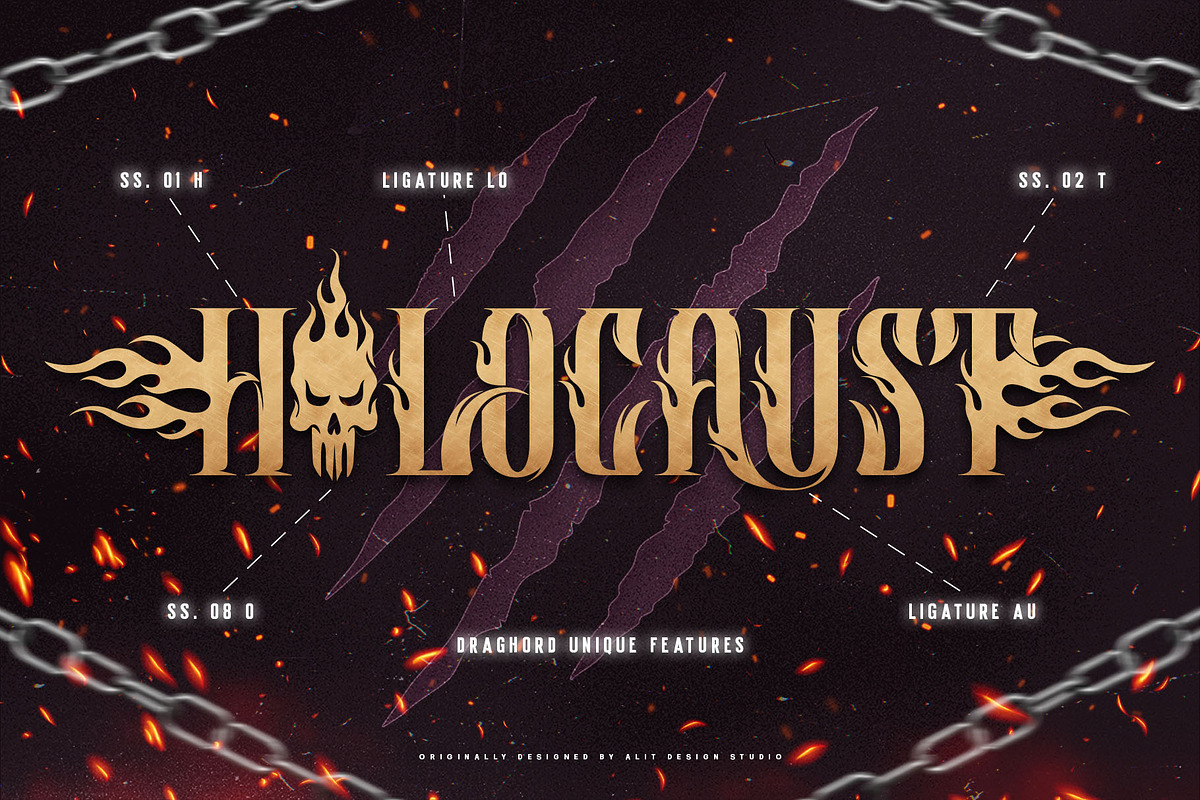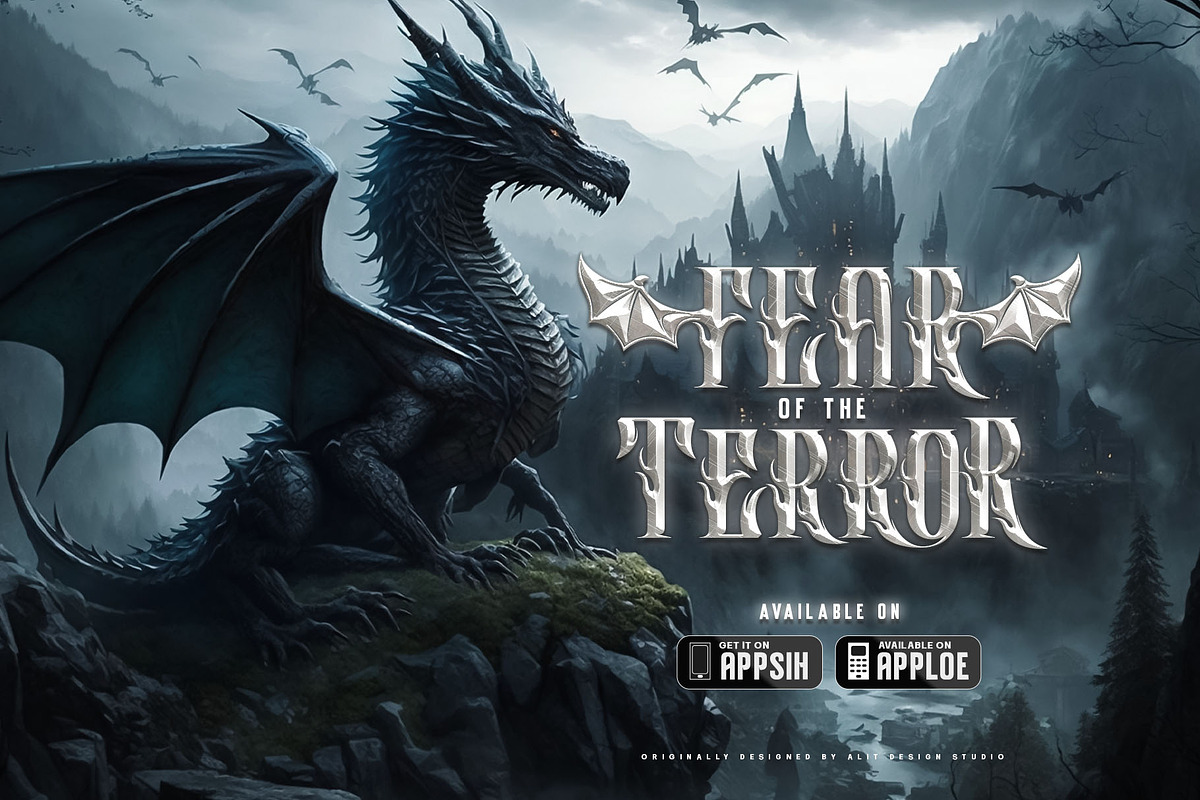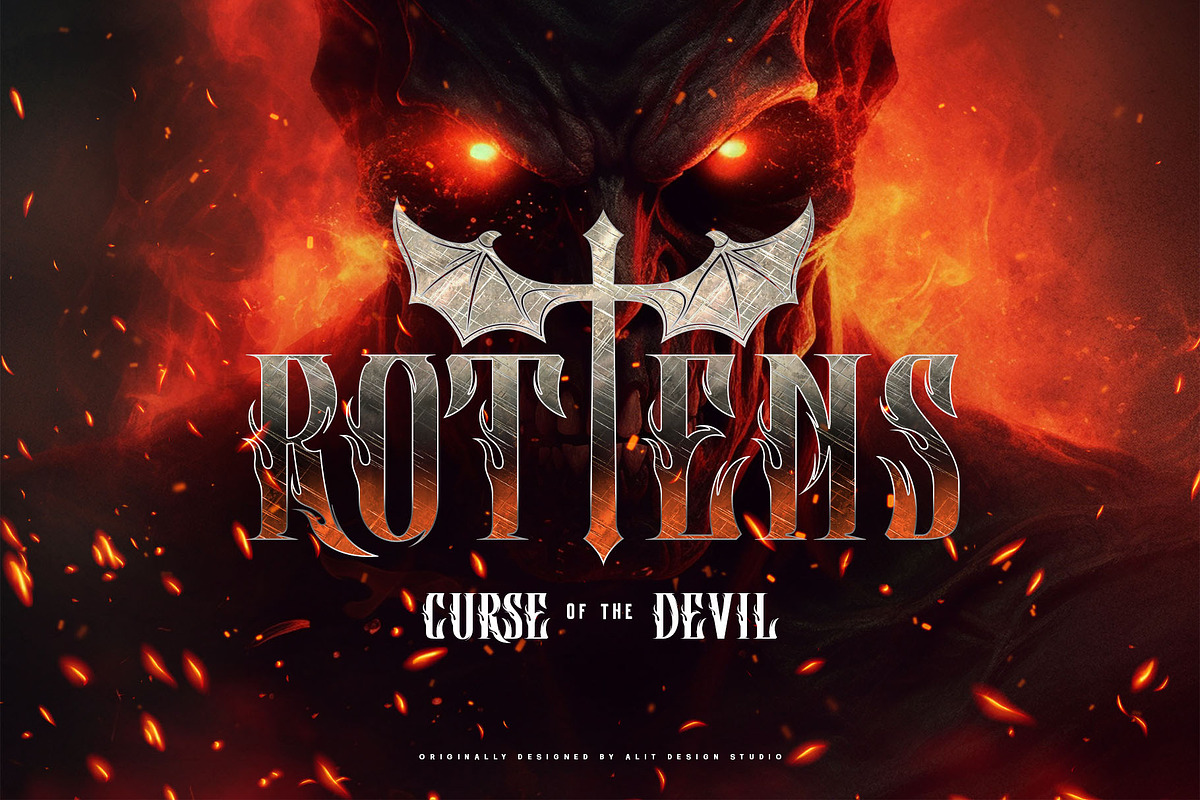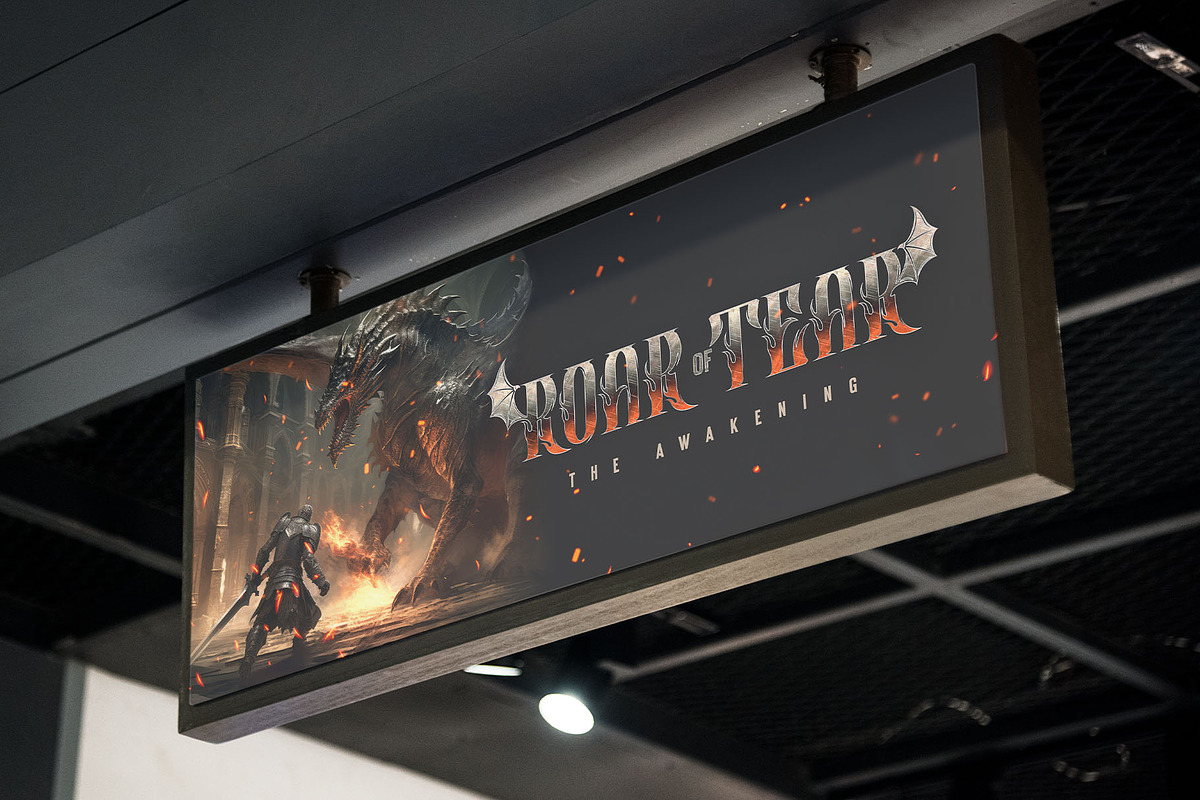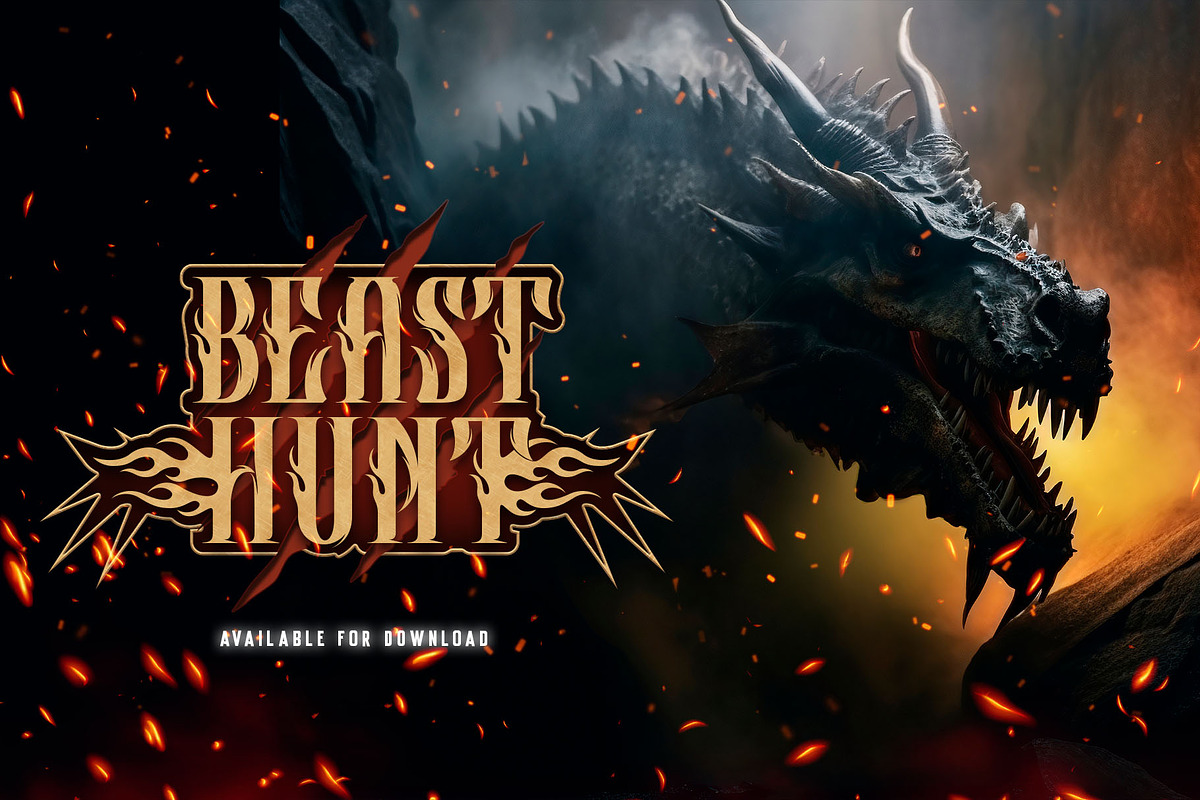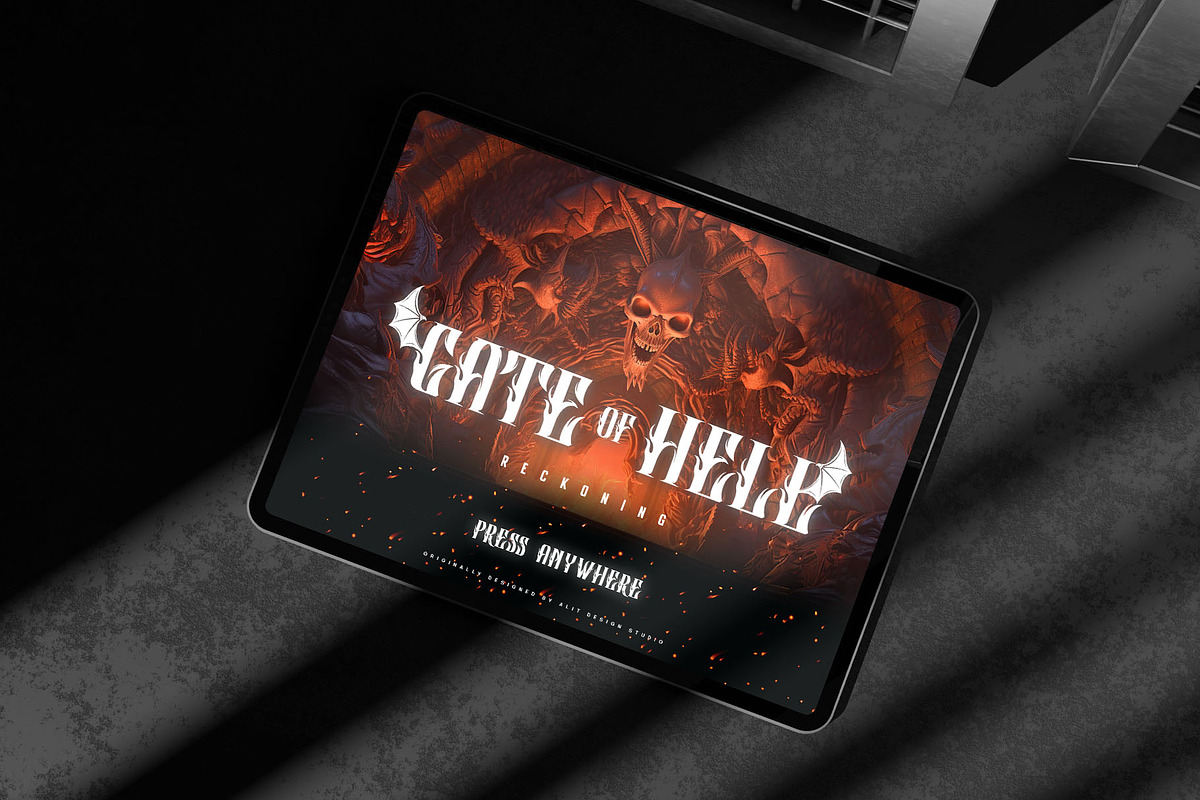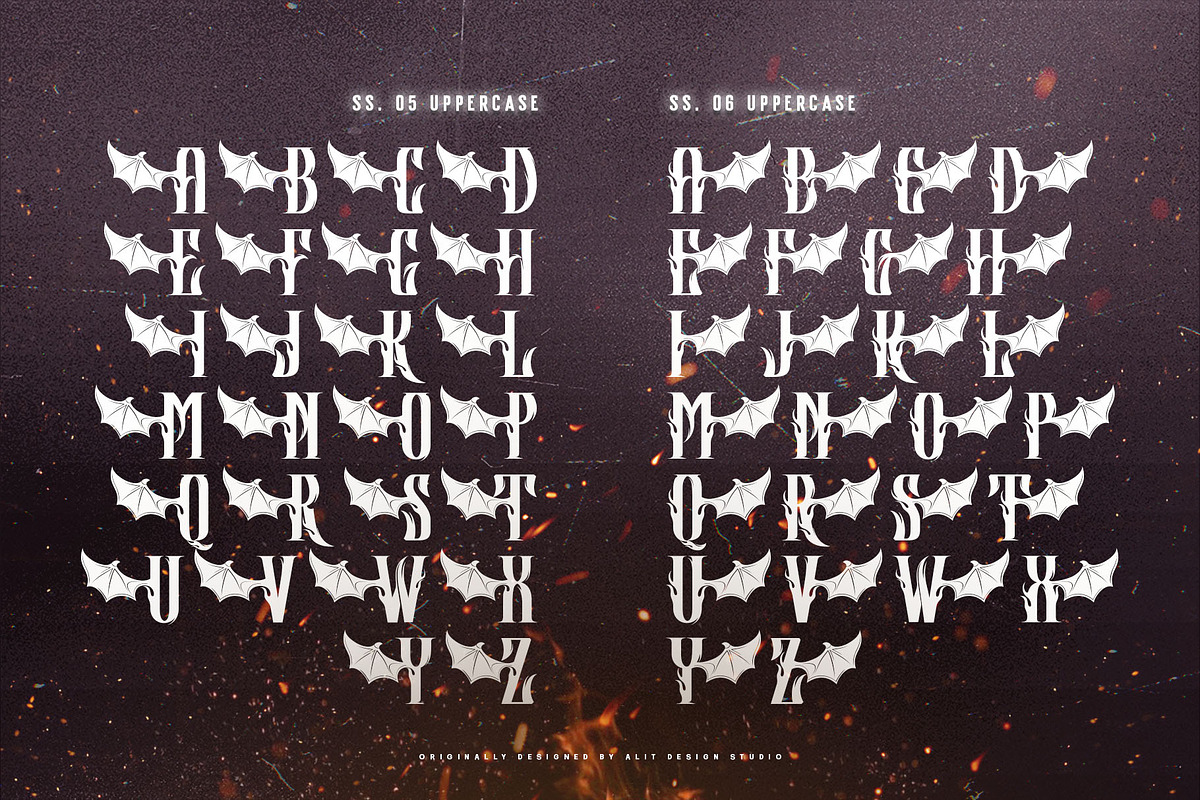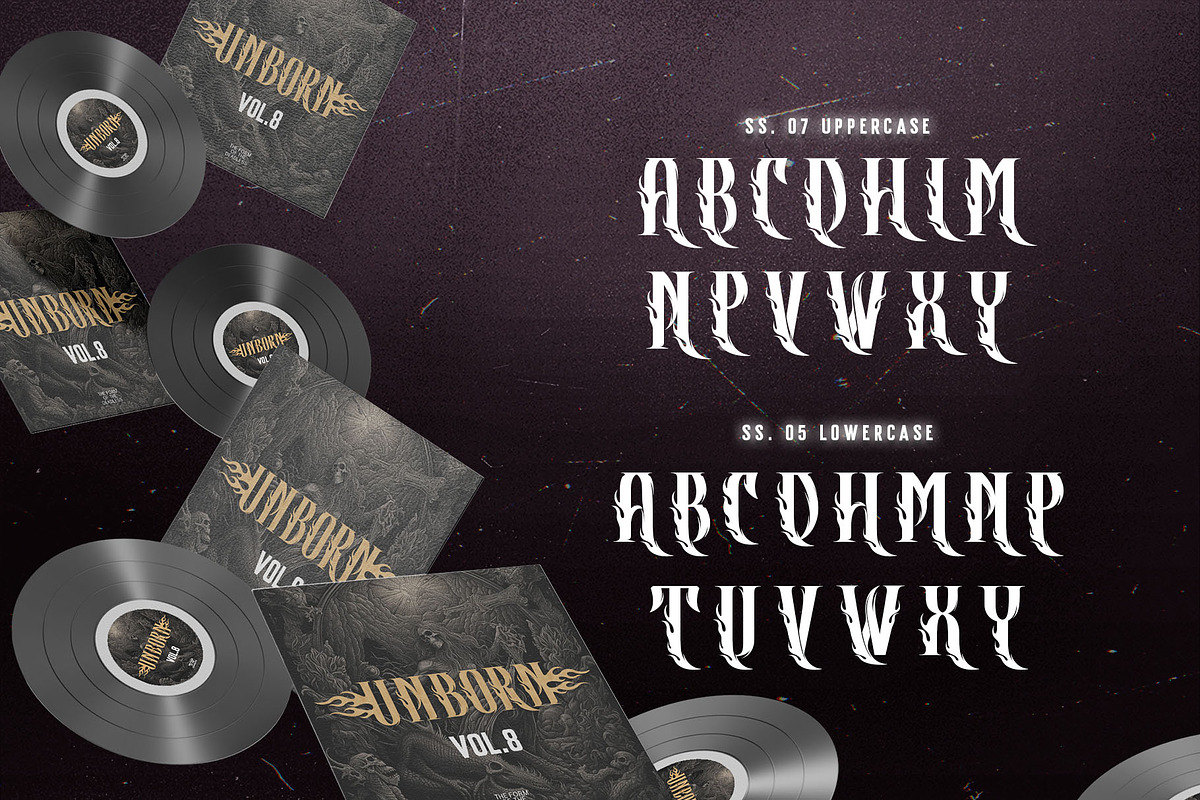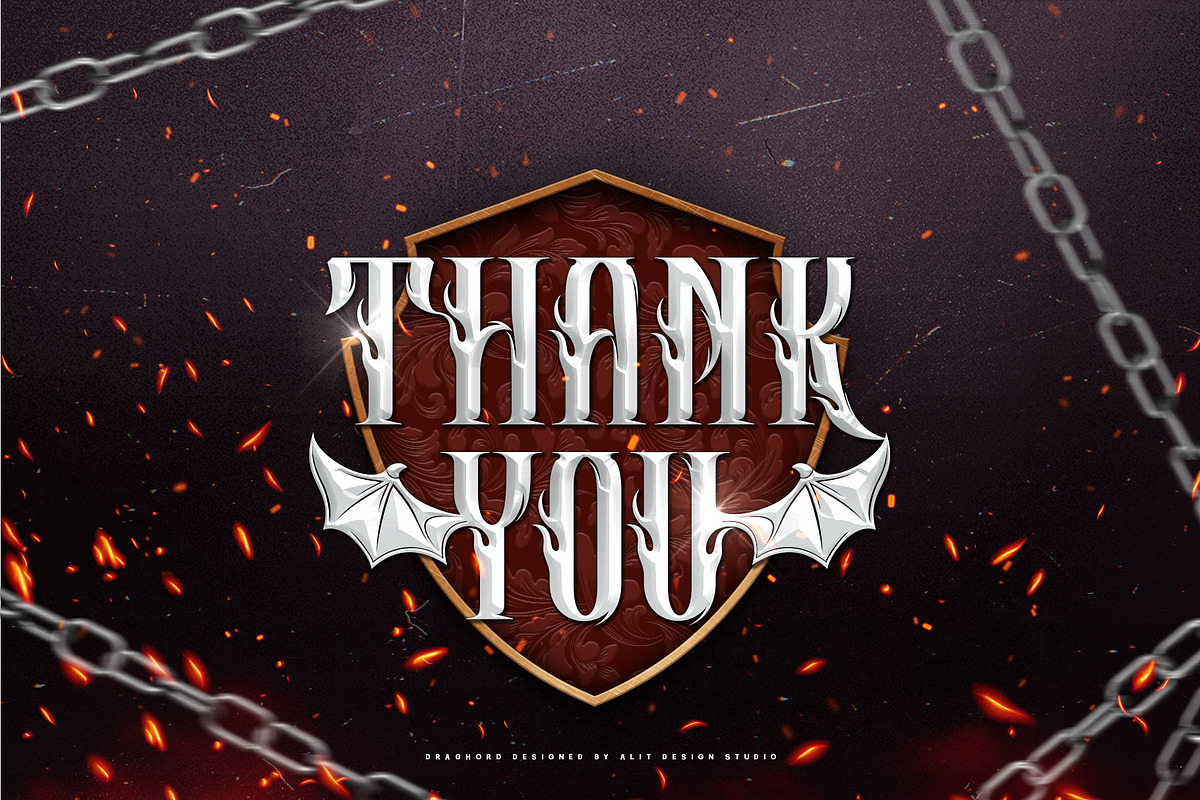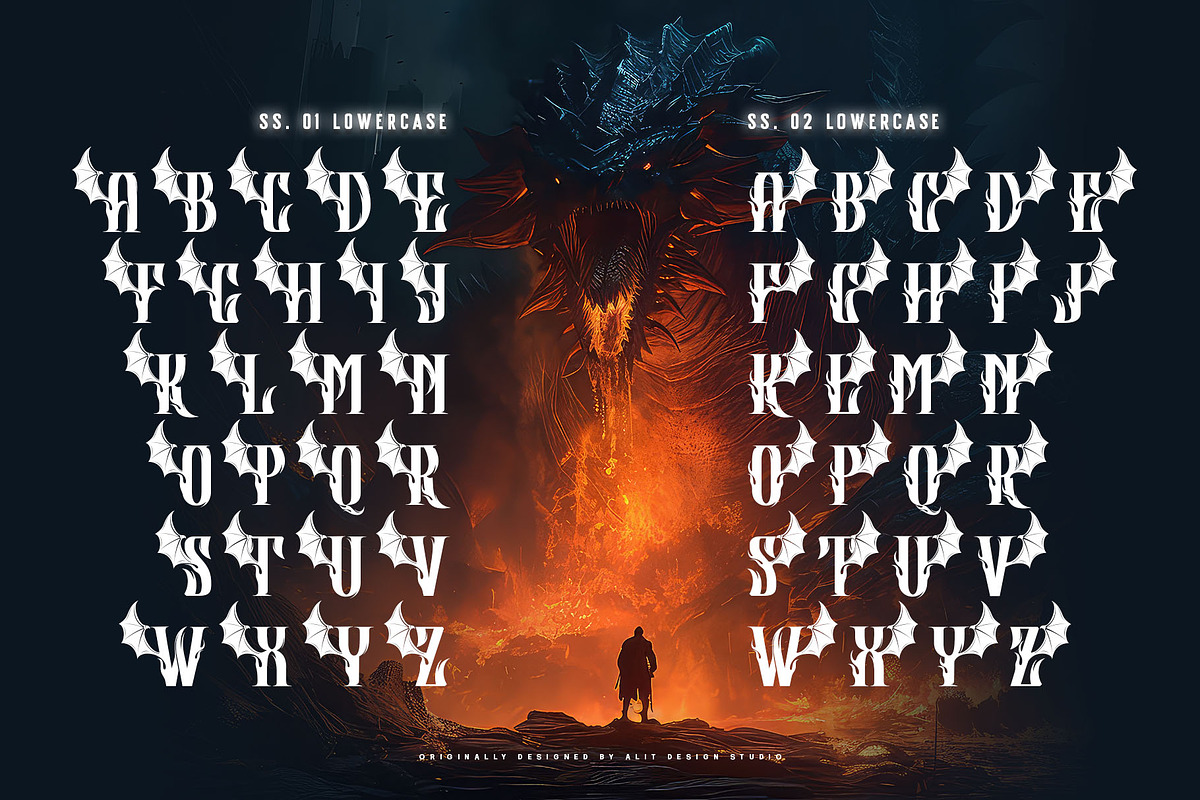
Draghord Typeface
Introducing Draghord, a bold and dynamic typeface that embodies the essence of superheroic power and adventure. This font is a visual journey into the realm of fire, swords, skulls, and wings, capturing the spirit of mighty heroes and formidable villains alike.
Characteristics:
Flaming Elements: Each letter of Draghord is adorned with fiery accents, reminiscent of a blazing inferno. The flames dance around the characters, conveying a sense of untamed power and intensity.
Sword-Inspired Strokes: The letterforms draw inspiration from the sleek and sharp edges of legendary swords. The angular and precise strokes give the font a cutting-edge aesthetic, symbolizing strength and precision.
Skull Motifs: Intricately integrated skull motifs within the font add an element of danger and mystery. The skulls serve as a visual reminder of the challenges faced by our superheroic characters, embodying both mortality and defiance.
Dynamic Winged Elements: The font incorporates dynamic winged elements that soar across certain letters, emphasizing the theme of flight and freedom. These wings symbolize the superhero's ability to rise above adversity and transcend limitations.
Usage Scenarios:
Comic Books: Draghord is perfect for comic book titles, captions, and speech bubbles, adding a dramatic and visually striking element to the narrative.
Movie Posters: Use Draghord to create attention-grabbing titles and taglines for superhero movies. Its bold and adventurous design will set the tone for epic storytelling.
Gaming Graphics: Ideal for in-game text, Draghord adds a heroic touch to video game interfaces, especially in fantasy or superhero-themed games.
Event Promotion: For superhero-themed events, Draghord can be utilized in promotional materials, posters, and banners to convey a sense of excitement and power.
In Conclusion: Draghord is not just a font; it's a visual experience that transports you into the heart of superheroic tales. With its fiery, sword-inspired design, skull motifs, and dynamic wings, Draghord is the perfect typographic companion for any project seeking to channel the thrilling energy of the superhero genre. Unleash the power of Draghord and let your words ignite the imagination!